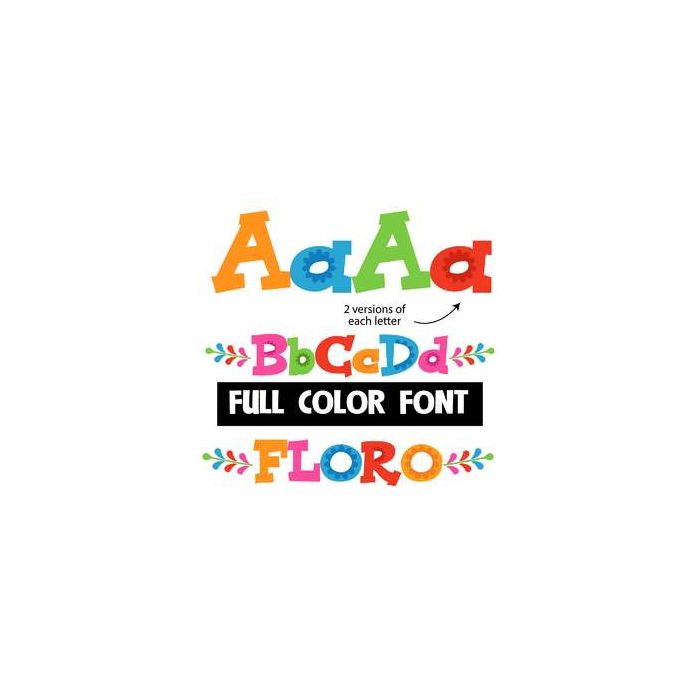
This full-color font features a bright color palette with floral elements in many letters. There is an alternate upper and lowercase in different colors to help you keep your work creative looking. Access it through your system's character map or the glyph map in Silhouette Studio. This font works best for titles, displays, posters and more. Please note color fonts will show as black in non compatible programs. This font type is compatible with Silhouette Studio